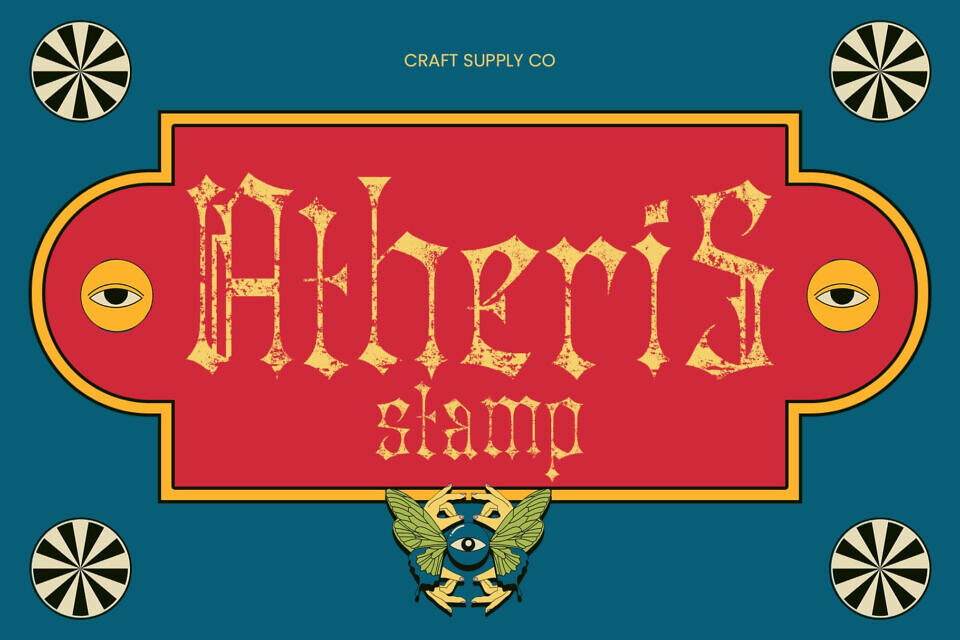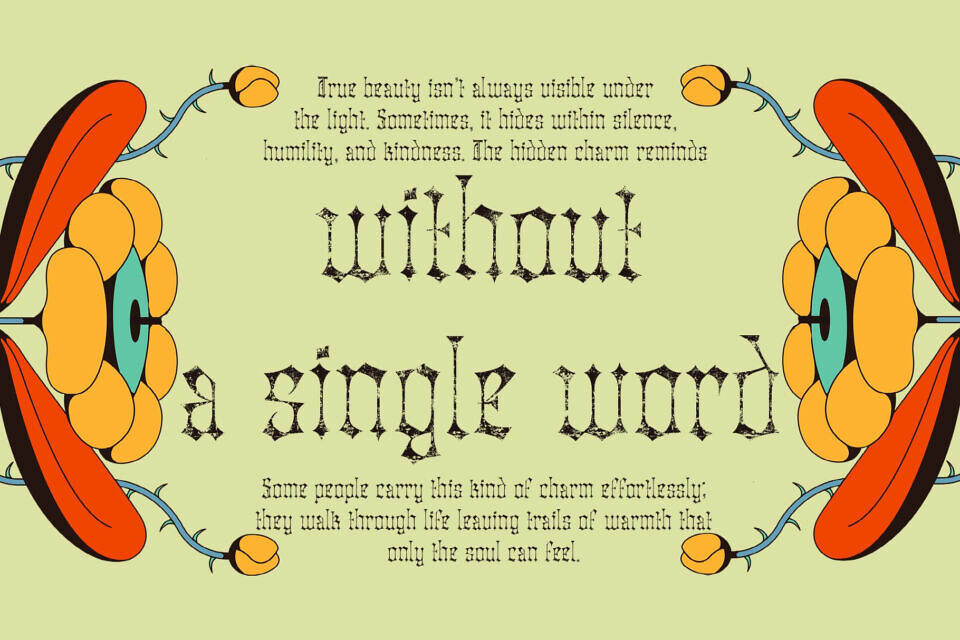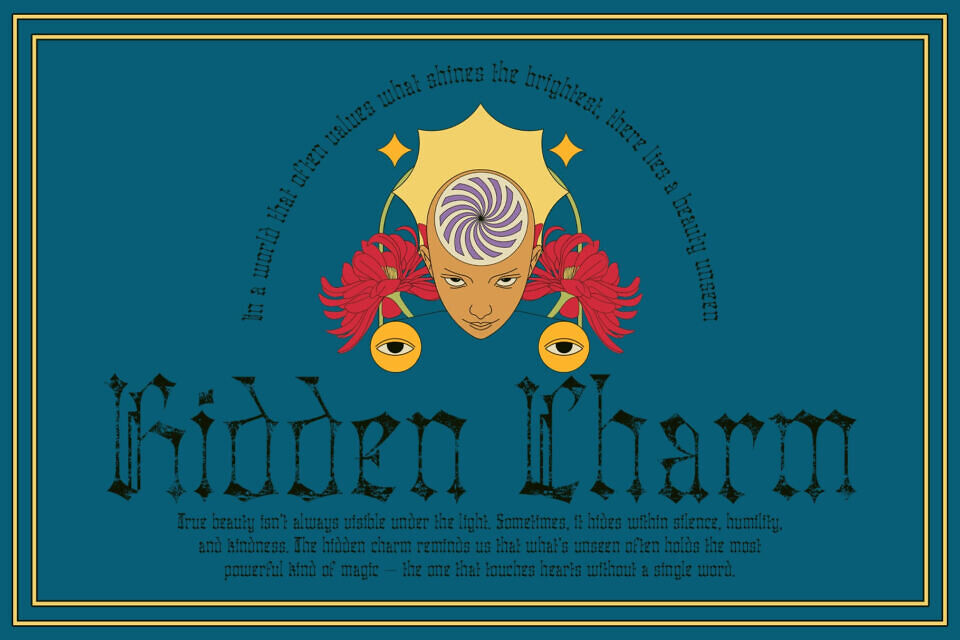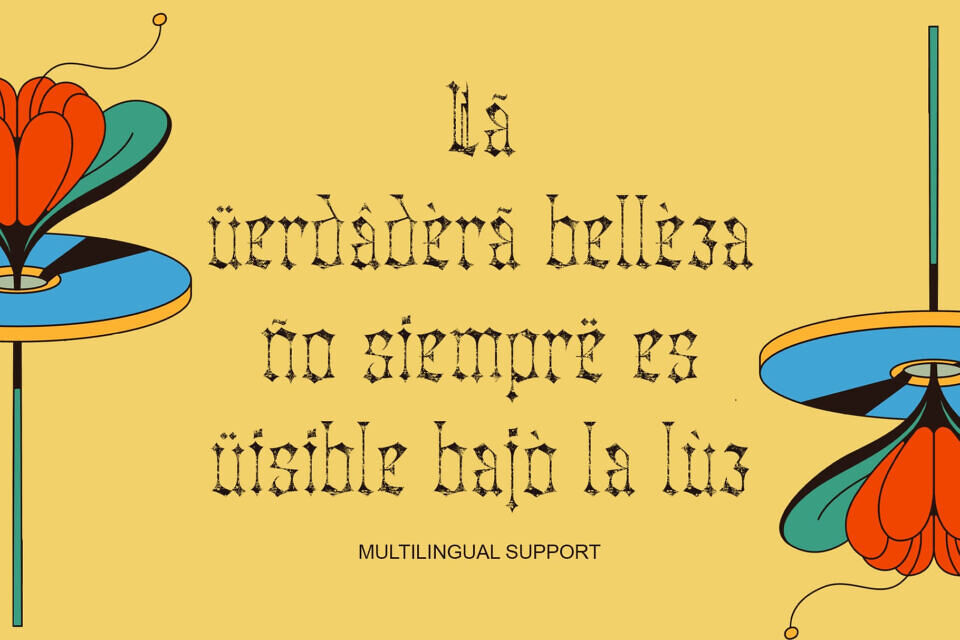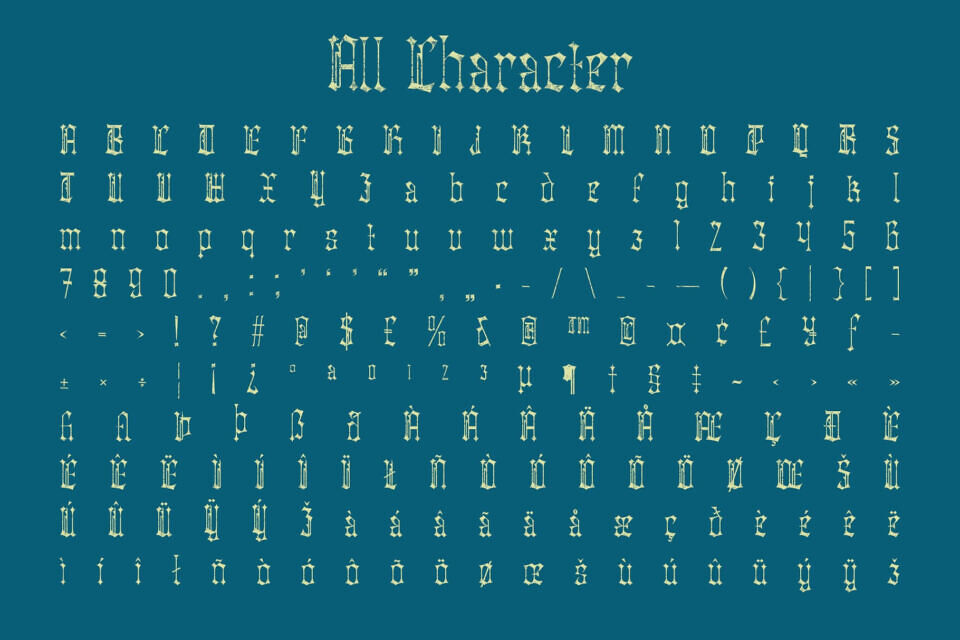
Atheris Stamp is a decorative Blackletter font defined by its bold, dramatic strokes and gothic elegance. Its letterforms evoke the spirit of medieval artistry, combining historic richness with a refined, contemporary touch that commands attention in any setting.
The stamp effect adds a handmade, textured finish that deepens the font’s visual impact. This tactile detail enhances its dramatic presence, creating an authentic, time-worn aesthetic that feels both powerful and expressive perfect for designs that seek character and craftsmanship.
Designed for book covers, posters, branding, or artistic projects, this it delivers a sense of mystery, strength, and sophistication. Its distinctive style makes it ideal for works that aim to convey heritage, intensity, or gothic beauty.